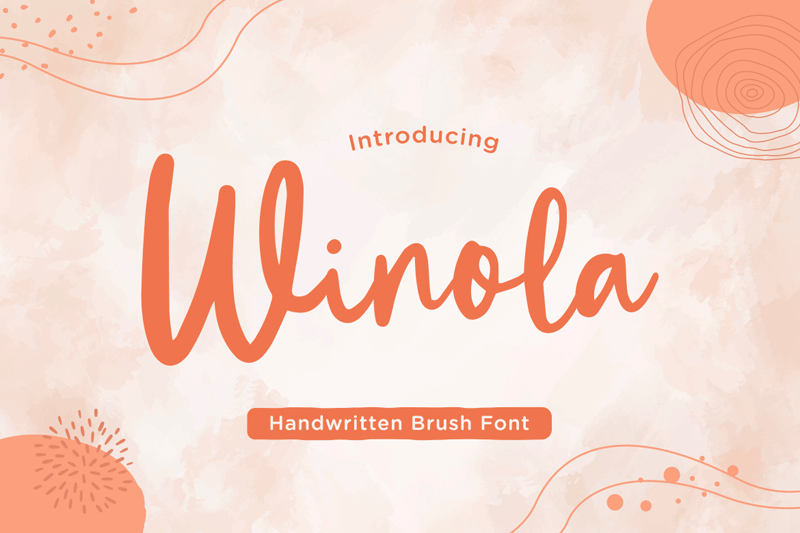
Winola is a brush script font. It has an authentic modern brush script look making it perfect for branding and digital designs. Use this font for logos, wedding decor, invitations, home decor, websites, blogs, instagram, business cards, branding, social media, and more! Full Version Download Here : https://typefactory.co/product/winola-handwritten-brush-font/ https://www.creativefabrica.com/product/tangisan/ref/501262/ |